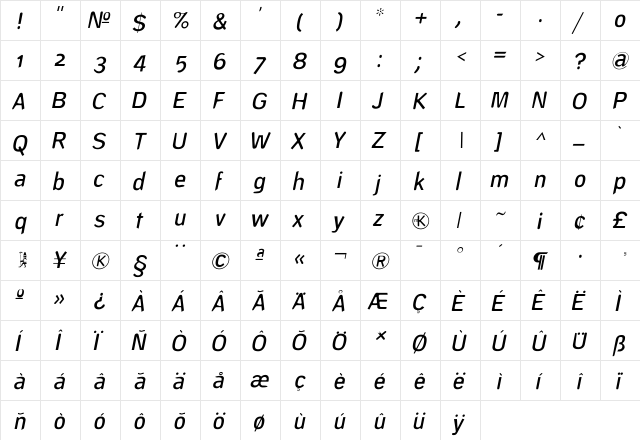
DeconStruct-LightOblique Regular Font Preview
Design Context for DeconStruct-LightOblique Typeface
DeconStruct-LightOblique takes a measured approach to typography — its balanced proportions and neutral character make it a reliable workhorse for both digital and print work. Its italic angle brings a sense of urgency and motion to the letterforms. Its slender proportions lend an understated elegance to any composition.
Pro Tip: Use DeconStruct-LightOblique for emphasis, pull quotes, and subheadings where its slanted energy can add rhythm to the layout.